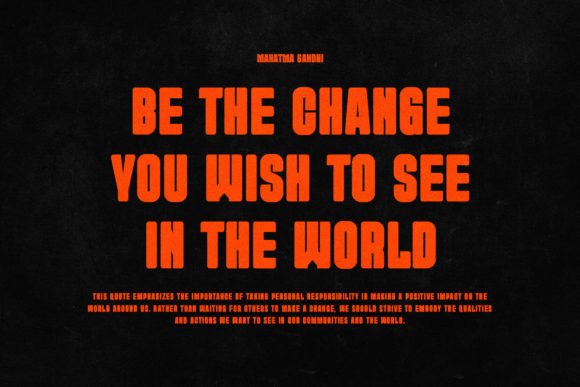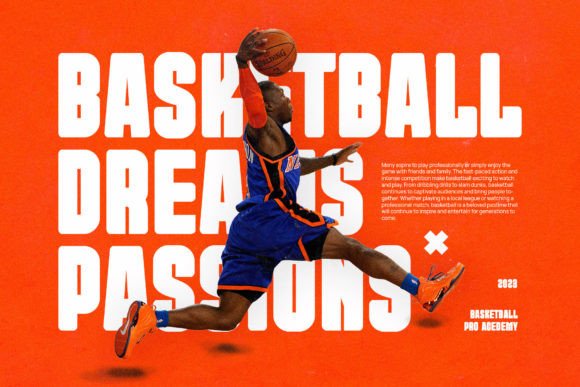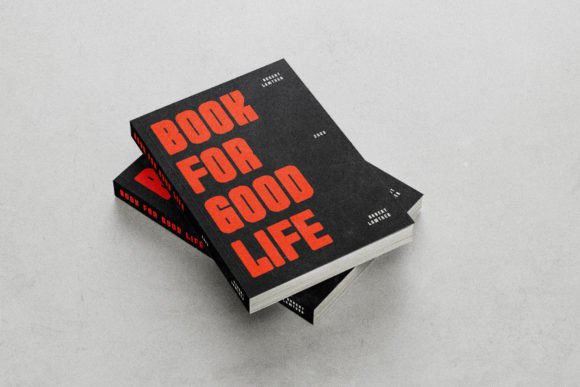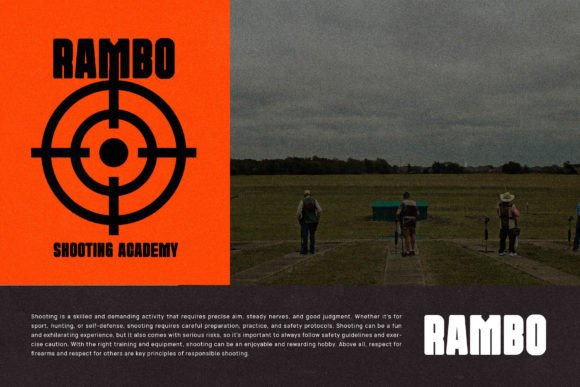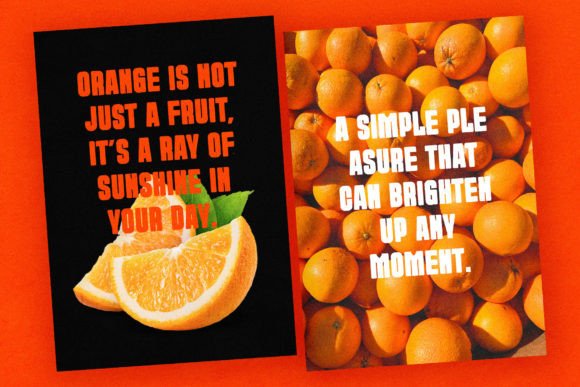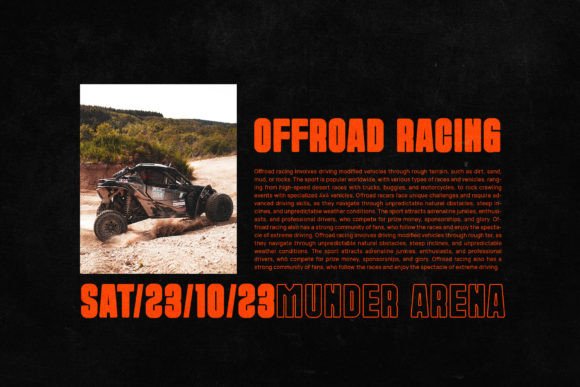
Introduction to Katona Font
This typeface encapsulates a rhythm that is symmetrical and balanced due to a unique mix of different sources of inspiration.
Proportions are precisely adjusted with subtle contours and subtle contrasts These shapes give the font an attractive look without compromising on elegance and minimalism, ensuring that any glyph will work well for any graphic design purpose such as brochures, videos, advertising branding, logos, magazines, layout designs, posters, post templates, games and others.